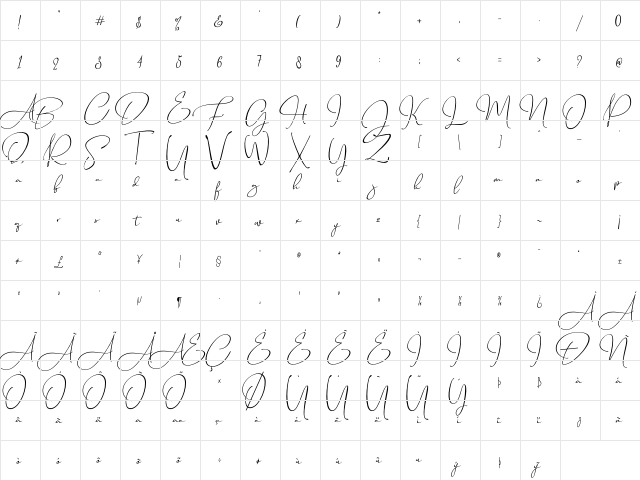
Travel Soulmates Signature Regular
| Designer | Aldedesign 2018 |
Design Context for Travel Soulmates Signature Typeface
Travel Soulmates Signature is a composed and adaptable typeface that performs quietly and consistently across a wide range of design contexts.